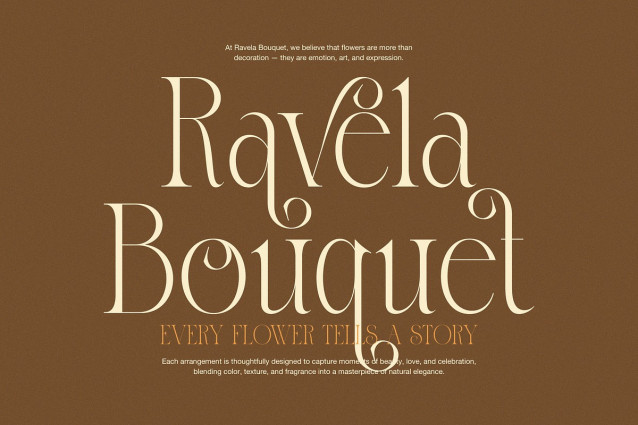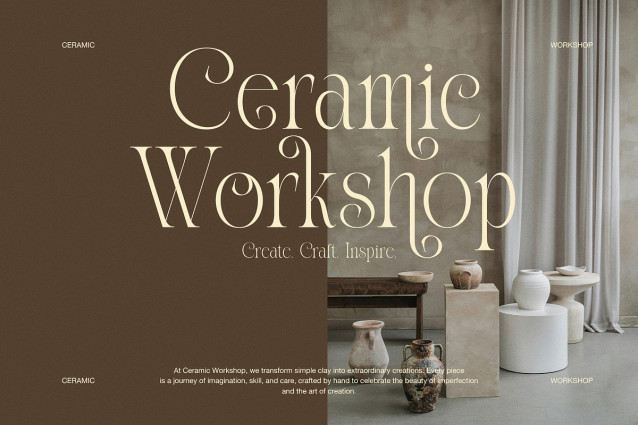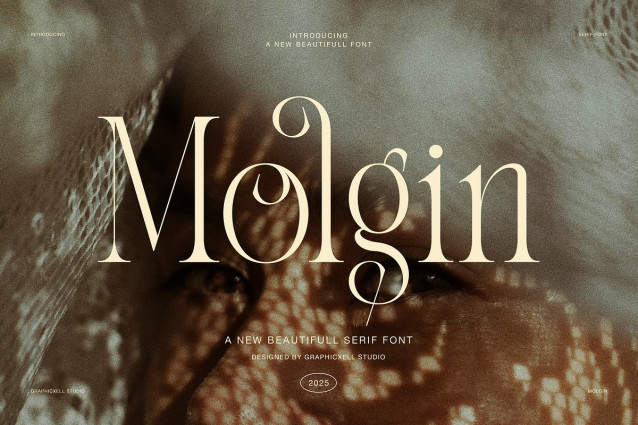
Molgin Font
Molgin Font is an elegant modern serif font created to express refinement, warmth, and contemporary luxury. It features graceful curves, balanced contrast, and decorative alternates that feel artistic yet controlled. Because every letter looks intentional, Molgin delivers beauty without losing readability.
This serif font blends classic editorial structure with a soft modern aesthetic. As a result, designers choose Molgin for fashion editorials, interior branding, and lifestyle visuals. Moreover, the elegant alternates add personality while keeping compositions clean and harmonious. Each glyph supports a calm and sophisticated rhythm.
Molgin works beautifully for designers who value atmosphere and detail. Therefore, it fits perfectly in furniture branding, ceramic workshops, florists, and boutique studios. In addition, it performs strongly in headlines, logos, and large display text where elegance must stand out.